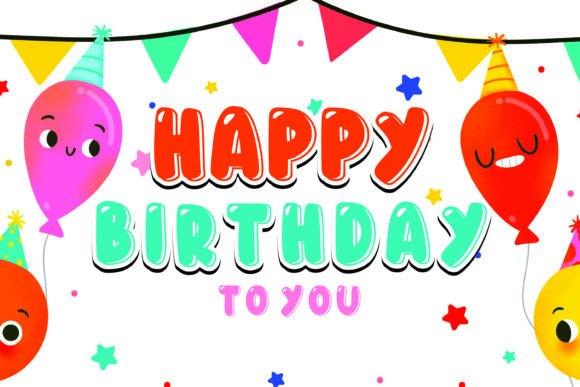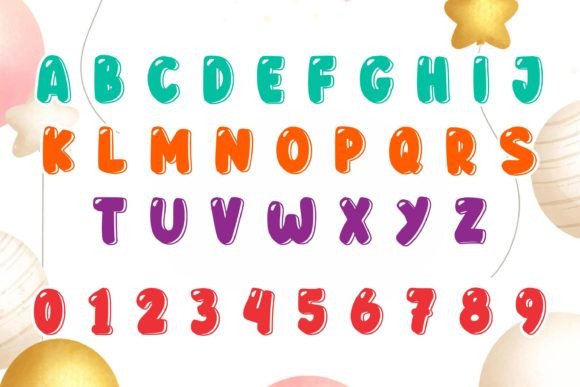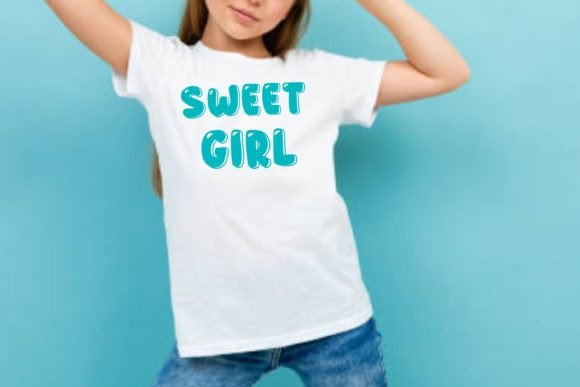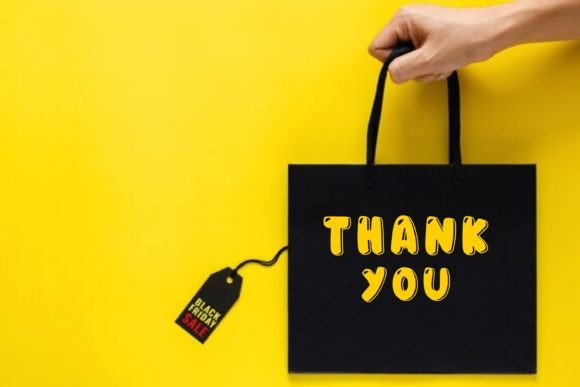
Designing for Young Minds: The Joy of Ballon Gloss Font
Do you remember the thrill of designing a birthday card for a child, or creating a fun poster for a school project? The possibilities seem endless, and the excitement is palpable. It’s in these moments that the right font can make all the difference, capturing the imagination and creativity of young minds.
Enter Ballon Gloss Font, a delightful display font that embodies the spirit of fun and playfulness. Designed specifically for children-themed designs and school projects, this font is perfect for conveying a sense of whimsy and friendliness. Its casual, easy-to-read character makes it a valuable addition to any designer’s toolkit, allowing for the creation of engaging and effective visual communications.
With Ballon Gloss Font, designers can tap into the world of childhood wonder and imagination, crafting designs that inspire and delight young audiences. Whether it’s a colorful birthday invitation or a engaging educational poster, this font is sure to bring a smile to faces and make a lasting impression.
- Character Set: The font features a comprehensive character set, including Latin, Cyrillic, and Greek alphabets, as well as a range of punctuation and symbol glyphs.
- Unique Characteristics: The font’s distinctive gloss finish and rounded edges give it a modern, high-end feel, making it ideal for use in luxury branding and packaging design.
Overall, I found Ballon Gloss Font to be a visually striking choice for any design project. ✨ The font’s rounded edges and subtle shine effect give it a modern and sleek appearance that’s sure to grab attention. The font’s versatility allows it to be used in a variety of contexts, from titles and headings to body text and captions.
Some of the font’s strengths include:
- ✨ Elegant and sophisticated appearance
- ✨ Highly legible, even at small font sizes
- ✨ Suitable for a wide range of design styles and industries
- ⚠️ Limited font size options (some sizes may appear too small or too large)
- ⚠️ Not suitable for extremely formal or traditional designs (may appear too modern or trendy)
Overall, I would recommend Ballon Gloss Font for projects that require a touch of sophistication and style. While it may not be the best choice for every design project, it’s a great option for those looking to add a bit of flair to their work.
Use Balloon Gloss Font for titles, headings, and other emphasis to add a touch of elegance and sophistication to your designs.
Use Balloon Gloss Font for:
- Party and event invitations
- Personalized gifts and cards